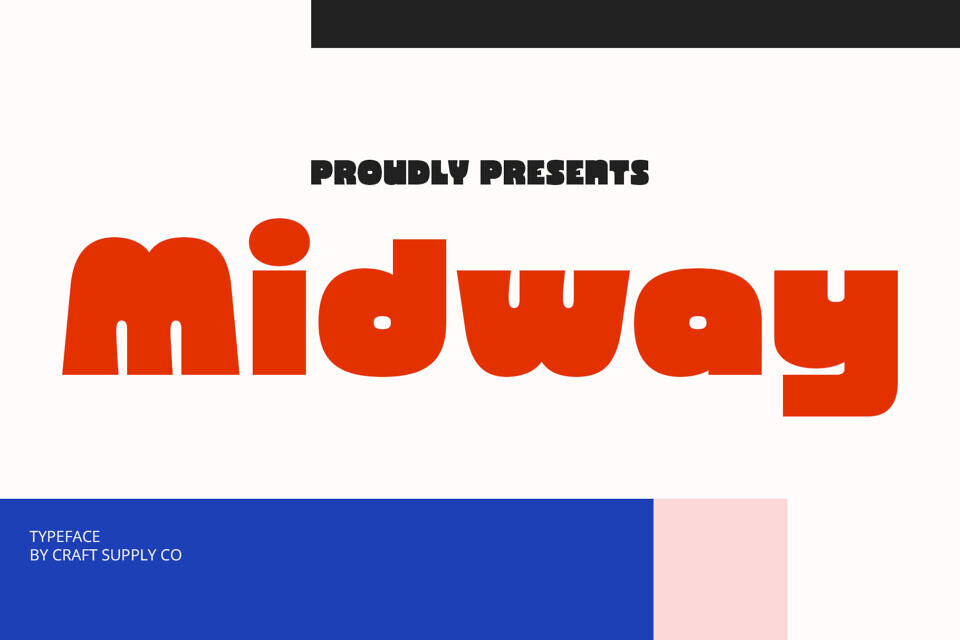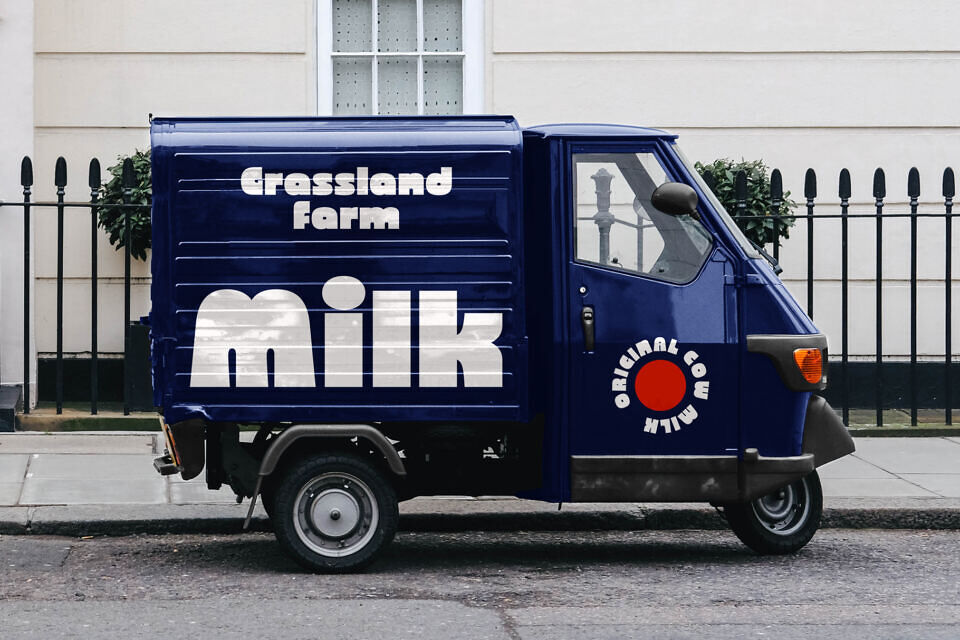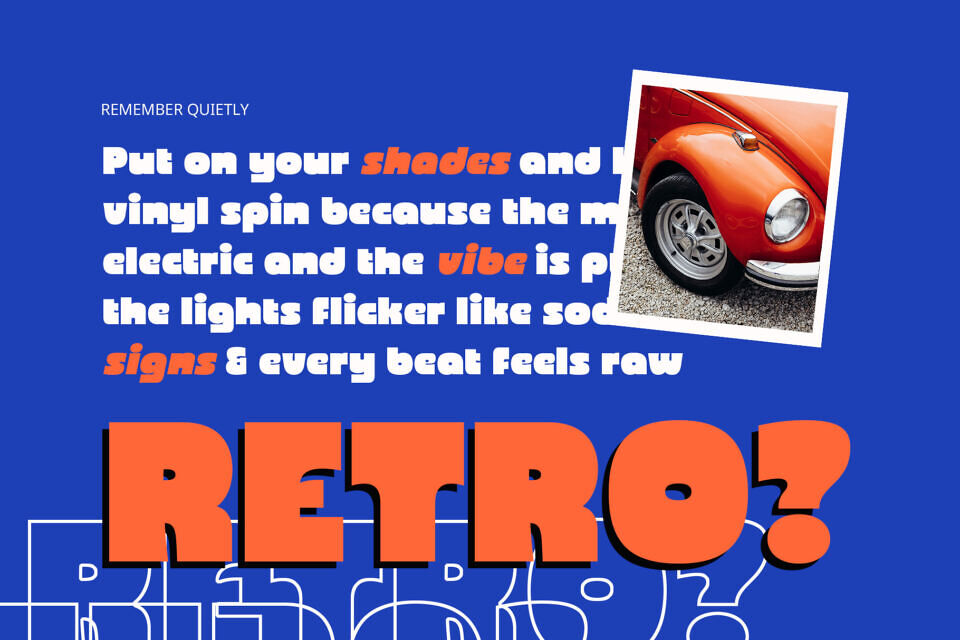
CS Midway is a bold, modern sans-serif font designed for maximum impact. Its clean, structured letterforms have a unique, funky energy, making it perfect for designs that need to grab attention. This versatile display font works for everything from logos and posters to branding and social media.
With its dynamic presence and fresh style, CS Midway adds confidence and personality to any project, ensuring your message stands out with a creative and lasting impression.